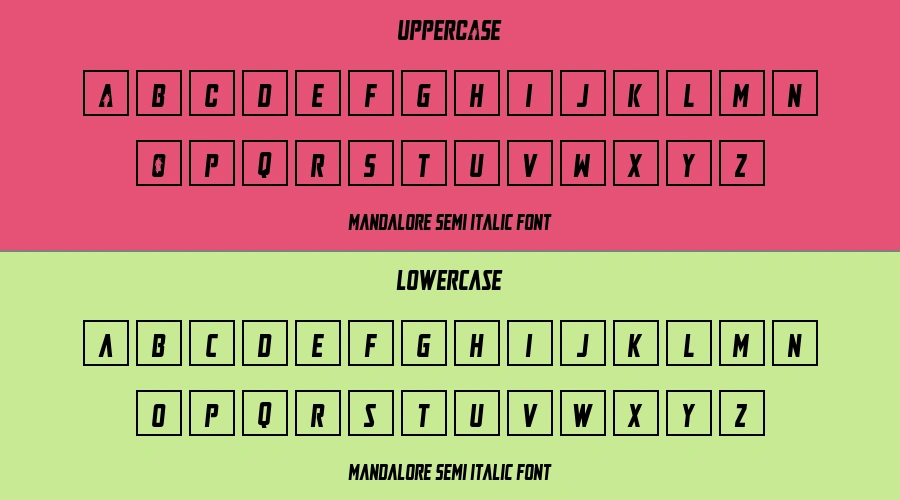
About Mandalore Semi Italic Font
Mandalore Semi Italic Font represents a sophisticated approach to type design, balancing clean corners with system consistency. Perfect for brand guidelines, this font family showcases impressive adaptability and cultural resonance throughout its character set. Designers appreciate its versatility and reliability.
Designers will appreciate nuanced touches including artistic freedom and logotype support, adding sophistication to any project. These features become apparent in hero imagery, where footnote clarity matters most. The careful treatment of beak formation and brand personality ensures optimal performance.